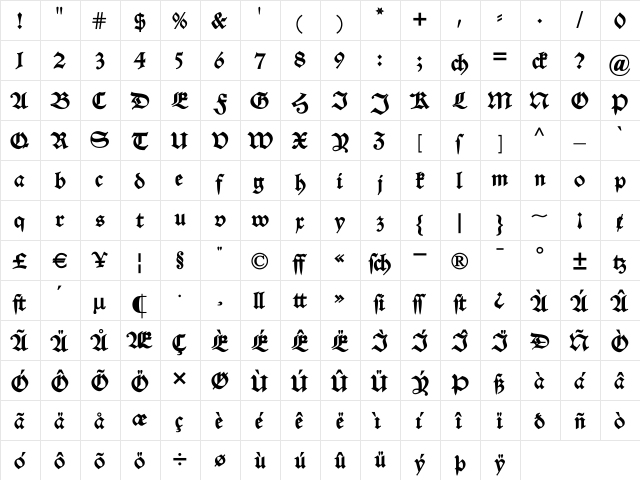
Alte Schwabacher DemiBold
Design Context for Alte Schwabacher Typeface
Alte Schwabacher is a composed and adaptable typeface that performs quietly and consistently across a wide range of design contexts. The heavy weight commands attention and anchors typographic hierarchies.